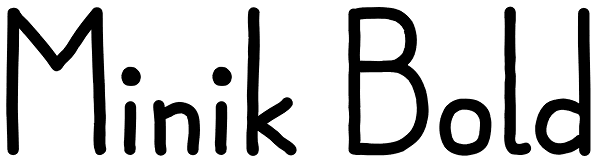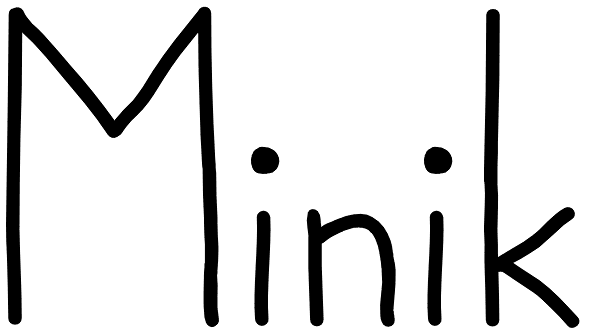
Minik
Minik Font Family comes in 2 weights; Regular and Bold. It is completely hand-drawn. While the capital letters have normal sizes, the lowercase letters are smaller than the common form in the vertical axis to have a cute view. The Minik Font Family...
Minik Bold
Minik